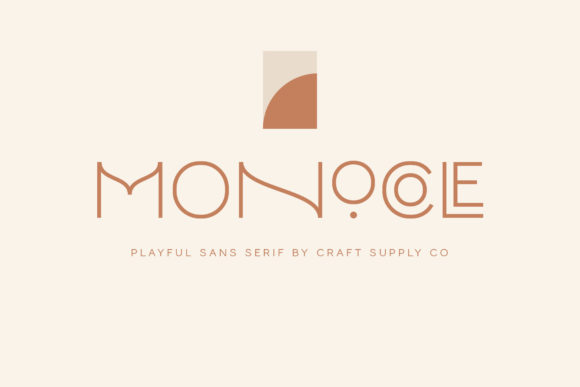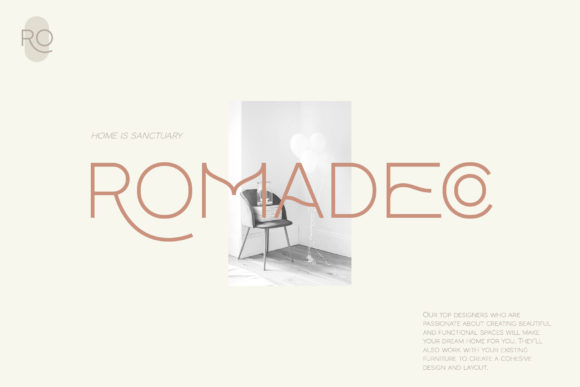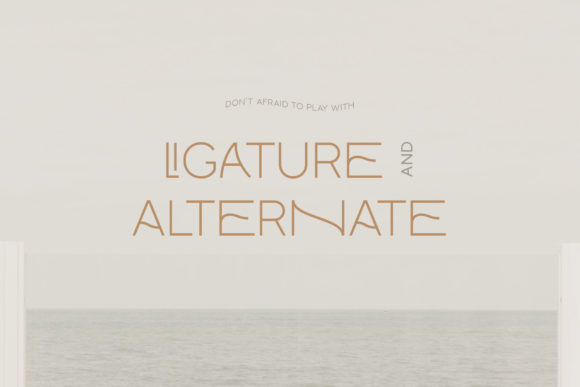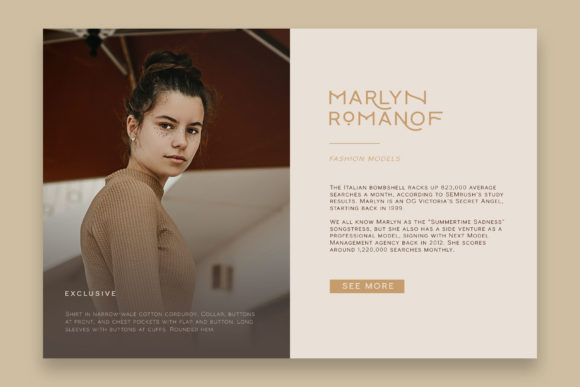
Monocole Font
About the Monocole Font
Meet Monocole Font, a stunning font that brings a touch of elegance and professionalism to any design. Monocole is an incredibly unique and elegant sans serif font. Suitable to a wide variety of designs Monocle has the potential to become your favorite go-to font, no matter the occasion!
Monocole’s elegant, yet distinctive, sans-serif forms excel in headlines, branding applications, and short-form text on posters or packaging. Its refined character lends itself well to projects requiring a touch of sophistication and modernity. However, its delicate details may become illegible in smaller sizes or extended body text, making it unsuitable for long paragraphs or user interfaces.
For effective pairings, consider complementing Monocole with a warmer serif like Garamond for a classic contrast, or a geometric sans-serif such as Futura for a contemporary feel. A handwritten script font like Pacifico can add a touch of personality to the overall design when used sparingly.
Monocole projects a confident, sophisticated personality, ideal for brands aiming for a clean, upscale image. Think minimalist fashion, high-end cosmetics, or architectural firms.